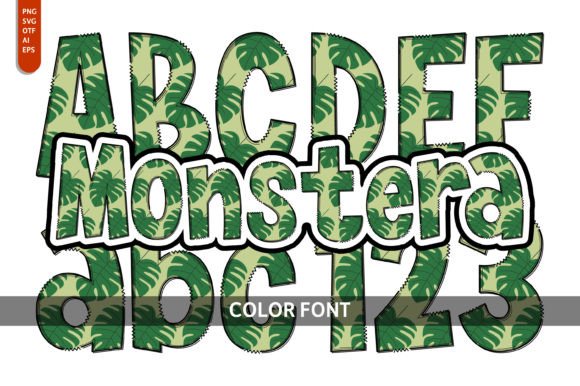
Summer's vibrant spirit comes alive with Monstera Font! A colorful font family that captures the essence of the season. Designed by Imagination Switch, this font transforms words into joyous bursts of color. Each letter playfully dances with hues reminiscent of sunny skies, blooming flowers, and sparkling waters.
Step into a realm of creativity with Monstera Font, the ultimate font for all your summer-themed projects. Whether you're crafting party invitations that radiate joy or creating social media graphics that evoke wanderlust, this font is your perfect companion.
Its colorful charm brings life to posters for summer events, brochures that transport readers to paradise, and social media posts that spread happiness like wildfire. With Monstera Font, your designs will be infused with the vibrant energy of the season.
Don't miss out on the opportunity to elevate your designs to new heights of creativity. Embrace the vibrant spirit of summer and watch as your projects blossom with color and charm. Experience the enchanting allure of Monstera Font today!